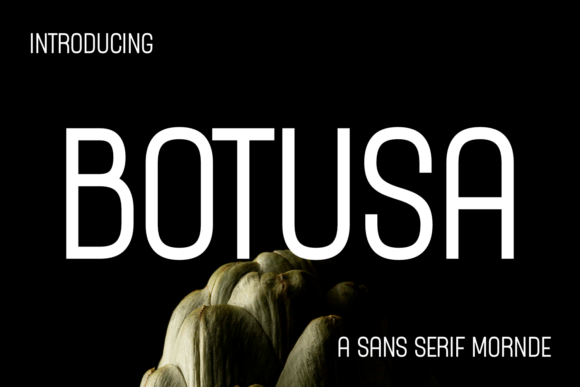
The Quest for the Perfect Font: Discovering Botusa
I still remember the frustration of working on a design project, hours spent crafting the perfect layout, only to be held back by one thing: the font. It was a client request for an elegant invitation, and I was determined to deliver. But, as I scrolled through my font library, nothing seemed quite right. That was until I stumbled upon Botusa, a clean and modern sans serif font that changed everything.
First Impressions: A Review of Botusa
Botusa is a breath of fresh air in the world of fonts. Its smooth lines and gentle curves make it incredibly easy to read, perfect for designs that need a touch of elegance. Here are some things I love about Botusa:
- ✨ Clean and modern aesthetic: Botusa has a sleek, contemporary look that’s perfect for designs that need to feel fresh and current.
- ✅ Ease of readability: The font’s gentle curves and smooth lines make it easy on the eyes, even at smaller sizes.
- 🌟 Versatility: Botusa works beautifully in a variety of contexts, from invitations and posters to digital projects and more.
Of course, no font is perfect, and Botusa has a few small quirks:
- 🤔 Limited character set: While Botusa covers the basics, it may not have every special character or glyph you need for more complex projects.
- ⚠️ May not be suitable for body text: Due to its elegant, refined nature, Botusa might not be the best choice for longer blocks of text.
One of the exciting aspects of Botusa is its support for OpenType features. This allows you to access a range of stylistic alternates and glyphs that can add variety to your text. For example:
- Stylistic Sets: Some fonts offer stylistic sets that change the appearance of letterforms for a more customized look.
- Ligatures: These can replace certain letter combinations with a single glyph, creating a more fluid reading experience.
The Story Behind Botusa
Botusa was designed with the aim of creating a versatile, elegant sans serif font that could be used across a range of mediums. Inspired by modernist design principles and the need for clarity in digital communication, Botusa brings a fresh perspective to the world of typography.
| What makes Botusa suitable for invitations and posters? | Botusa’s clean lines, gentle curves, and elegant aesthetic make it perfect for designs that require a touch of sophistication. |
| Can I use Botusa for body text? | While Botusa is highly readable, it’s primarily designed for headings and titles. For longer blocks of text, you might prefer a font specifically designed for body text. |
| Does Botusa support OpenType features? | Yes, Botusa supports OpenType features, allowing you to access a range of stylistic alternates and glyphs to enhance your design. |
Botusa is a versatile and elegant font that’s sure to elevate your designs. Whether you’re working on invitations, posters, or digital projects, Botusa’s clean lines and gentle curves make it an excellent choice. Give it a try and see how it can bring a fresh perspective to your creative work!